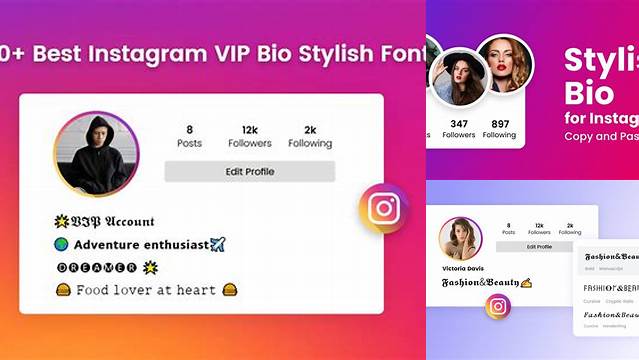
Cool Instagram Bio Fonts & Symbols: Copy & Paste Guide
Hey guys! Want to make your Instagram bio seriously pop? You've landed in the right spot! Your Instagram bio is like your digital handshake – it's the first thing people see, and you want to make a killer impression. One super easy way to do that is by jazzing it up with cool fonts and symbols. But who has time to hunt for those, right? That's where the copy-and-paste magic comes in! Let's dive into how you can transform your bio from blah to bam! using fancy fonts and awesome symbols.
Why Cool Fonts and Symbols Matter for Your Instagram Bio
First off, let's talk about why this even matters. In the crazy-busy world of Instagram, grabbing attention is everything. Your bio is prime real estate, and a unique font or symbol can be the difference between someone scrolling past and someone stopping to check you out. Think of it this way: a standard font is like wearing plain jeans, while a cool font is like adding a splash of color with a funky belt or a pair of vibrant sneakers. Which one stands out more? Exactly!
Your Instagram bio is your introduction, your elevator pitch, your chance to tell the world (or at least your potential followers) who you are and what you're about. A visually appealing bio makes you look more professional, more creative, and, let's be honest, way more interesting. It's a simple way to show off your personality and style without saying a word. Plus, using unique fonts and symbols can help you highlight key information, like your website link, your interests, or your contact info. It's all about making it easy for people to understand what you do and why they should follow you. So, ditch the boring default font and let's get fancy!
Finding the Perfect Fonts for Your Instagram Bio: A Copy-and-Paste Paradise
Okay, so you're sold on the idea of a fancy font. Awesome! Now, where do you find these magical fonts? The good news is, you don't need to be a design whiz or download any crazy apps. There are tons of online tools that let you generate cool fonts for your bio, and all you have to do is copy and paste. Seriously, it's that easy. These tools work by using special Unicode characters that look like different fonts but are actually just variations of letters and symbols. This means Instagram can display them without any issues, and you get a super stylish bio without any extra effort.
Exploring your font options is part of the fun, and there are a ton of choices out there! From elegant scripts that add a touch of class to bold, blocky fonts that scream attention, you can find something that perfectly matches your vibe. Some popular styles include cursive fonts for a handwritten feel, sans-serif fonts for a clean and modern look, and even fun, quirky fonts that add a playful touch. Play around with different options and see what resonates with you and your brand. Maybe you're going for a sophisticated and minimalist aesthetic, or perhaps you want something bold and energetic. Whatever your style, there's a font out there waiting to be discovered. And the best part? You can change it up whenever you feel like it! Keep your bio fresh and engaging by switching fonts to match your mood or the season. The possibilities are endless!
Symbols to Supercharge Your Instagram Bio
Fonts are fantastic, but symbols? They're the sprinkles on your bio sundae! Symbols can add visual interest, break up text, and highlight important information. Think about using symbols like arrows to draw attention to your website link, or cute icons to represent your hobbies and interests. A well-placed symbol can speak volumes, adding personality and clarity to your bio. It's about creating a visual language that resonates with your audience, giving them a quick and easy way to understand who you are and what you're passionate about.
Choosing the right symbols is key, and there's a whole universe of options out there! You've got your classic stars and hearts, but you can also get creative with arrows, checkmarks, musical notes, and even emojis (though, a little emoji love goes a long way – you don't want your bio looking like a sticker bomb!). Think about what best represents you and your brand. If you're a travel blogger, maybe a globe or a plane icon would be perfect. If you're a foodie, how about a knife and fork? Or if you're all about music, a simple musical note can do the trick. It's about finding those little visual cues that add depth and personality to your bio. And just like with fonts, you can find tons of symbols online that are ready to be copied and pasted. It's like having a treasure chest of visual goodies at your fingertips!
Step-by-Step: Copy and Paste Your Way to an Awesome Bio
Alright, let's get down to the nitty-gritty. How do you actually do this copy-and-paste magic? Don't worry, it's super simple. First, you'll want to find a font generator or symbol website. A quick Google search for "Instagram bio fonts" or "copy and paste symbols" will hook you up with tons of options. Once you've found a site you like, it's time to get creative!
Using a font generator is a breeze. Just type your bio text into the generator, and it will spit out your text in a bunch of different fonts. Scroll through the options until you find one that catches your eye. Then, simply copy the text and paste it into your Instagram bio. Boom! Instant font upgrade. When it comes to symbols, many websites have a library of symbols you can browse. Just click on the symbol you want, and it will be copied to your clipboard. Then, head over to your Instagram bio and paste it in wherever you want. It's like a visual buffet – you can mix and match symbols to create a bio that's uniquely you.
Here's a step-by-step breakdown:
- Find a font generator or symbol website.
- Type your text (for fonts) or browse the symbol library.
- Copy your chosen font or symbol.
- Go to your Instagram profile and tap "Edit Profile."
- Paste your font or symbol into your bio.
- Save your changes, and admire your awesome new bio!
Don't be afraid to experiment! Try out different fonts, symbols, and bio formats until you find what works best for you. And don't be afraid to change things up from time to time. Keep your bio fresh and engaging, and you'll be sure to attract the right followers and make a lasting impression. So go ahead, unleash your creativity, and make your Instagram bio a true reflection of you. Your followers (and potential followers) will thank you for it. Now go forth and create an awesome bio that turns heads and gets you noticed! You got this!